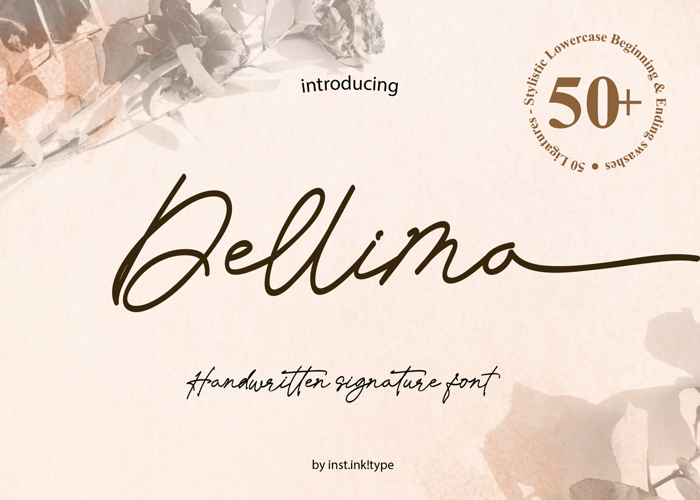
Dellima Font
Introducing Dellima. A handwritten signature font. Casual & modern stylish font. Include 50 of ligatures and have a stylistic lowercase beginning and ending letters.This font is best suited for headlines all size, or blocks text. And suitable for invitations, logos, web pages, quotes, and many more. Explore your design with Dellima.